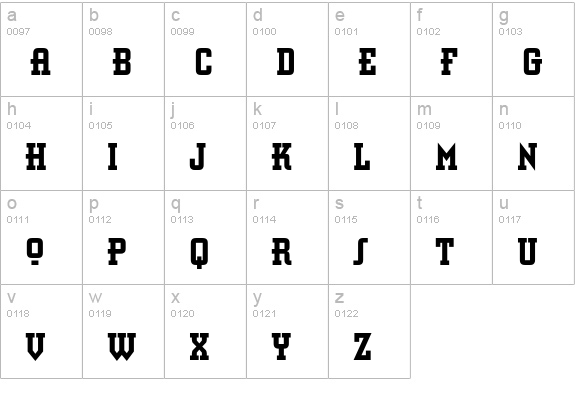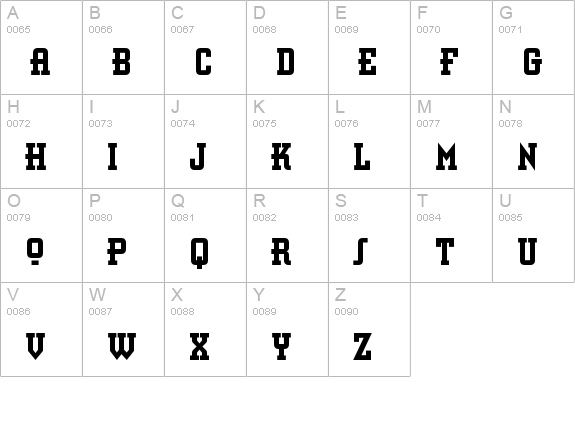
Retro Bold Std Condensed Font Details
Retro Bold Std Condensed is a strong, high-contrast, condensed-width variant in the Retro typeface family \xE2\x80\x94 well suited to headlines, attention-grabbing titles, and strong calls-to-action.
Introducing Retro Bold Std Condensed font, a stunning typeface that effortlessly captures the essence of the retro era with a bold and condensed design. This font pays homage to the iconic styles of the past, with its sleek and streamlined letterforms that exude a sense of confidence and nostalgia. Retro Bold Std Condensed is a versatile font that can be used for a wide range of projects, from vintage-inspired logos and branding to eye-catching headlines and posters. Its condensed nature allows for maximum impact, making it perfect for creating bold statements and grabbing attention. But what sets Retro Bold Std Condensed font apart is not just its timeless style, but also its accessibility. It is freely available to download at FontsMarket.com, making it easily accessible to designers, creatives, and enthusiasts alike. Whether you're a professional designer looking to elevate your projects or a hobbyist wanting to add a touch of retro flair to your personal creations, this font is a must-have addition to your toolkit. With its clean lines, balanced proportions, and unique character, Retro Bold Std Condensed font brings a sense of authenticity and charm to any design. Its versatility and freely available nature make it a go-to choice for those seeking a font that effortlessly combines the best of the past with the demands of the present. Download Retro Bold Std Condensed font for free at FontsMarket.com and embark on a journey back in time, where boldness and nostalgia collide in perfect harmony. Let this font be the key that unlocks a world of creativity, allowing you to create designs that are both timeless and captivating.